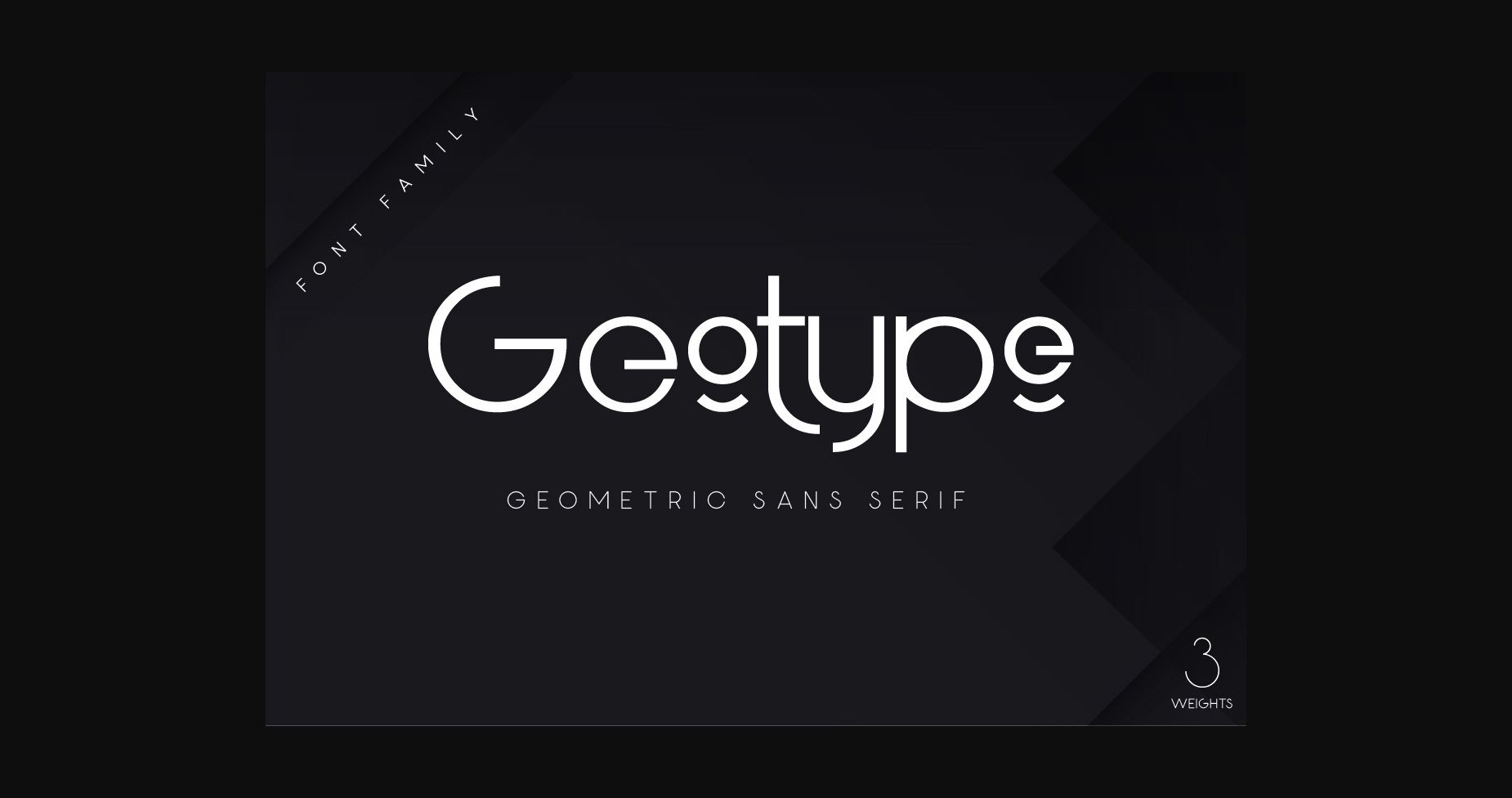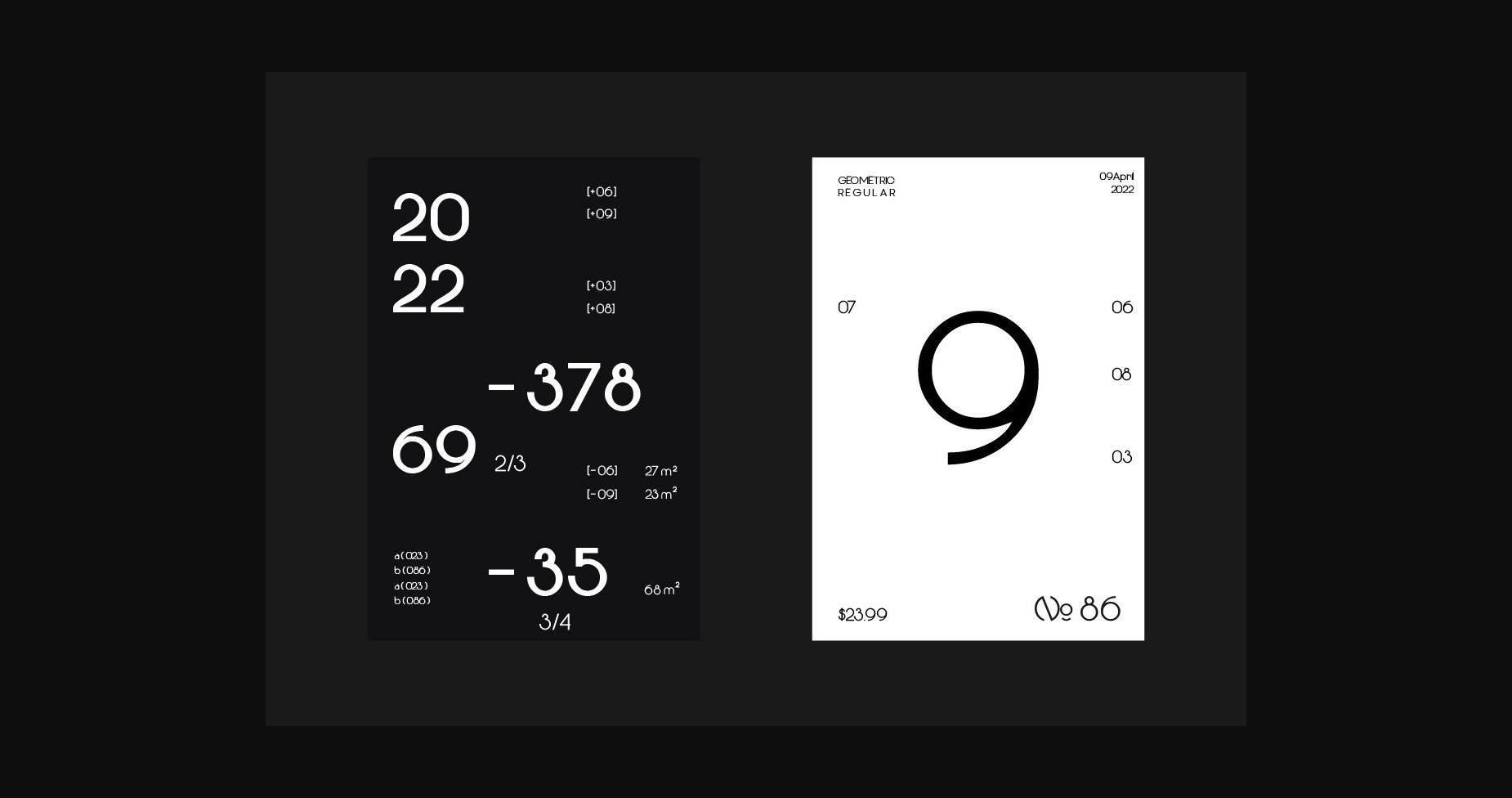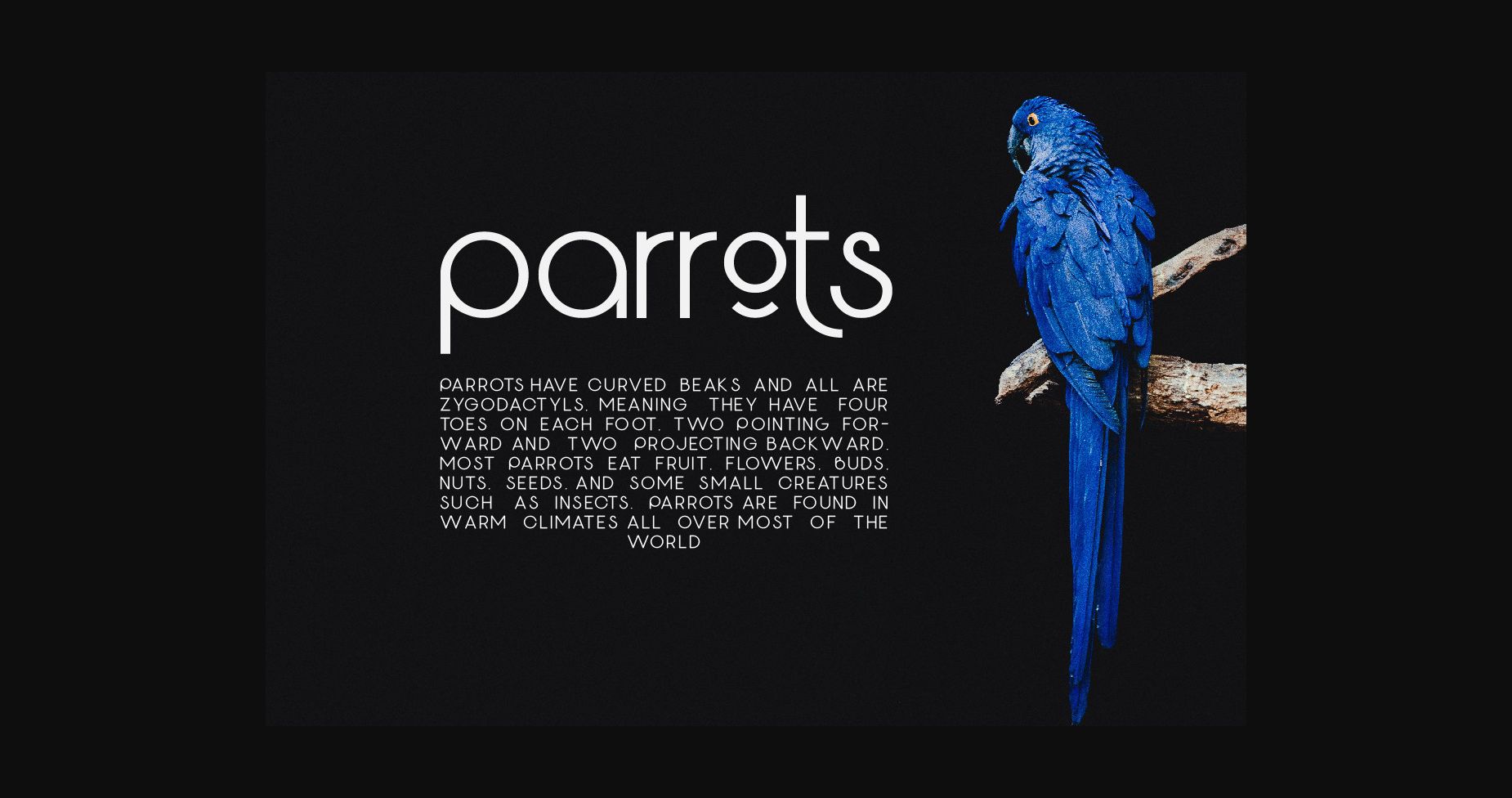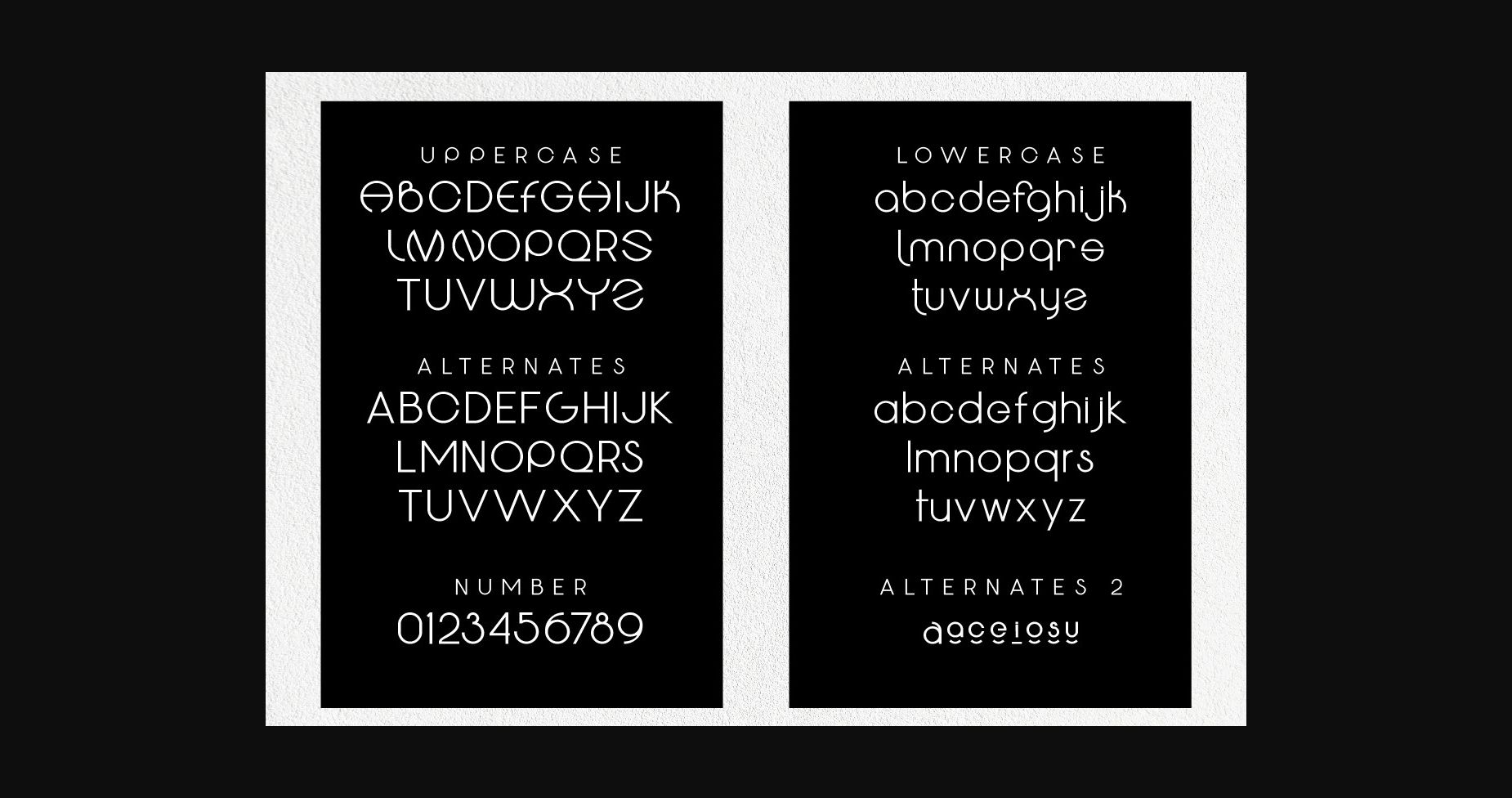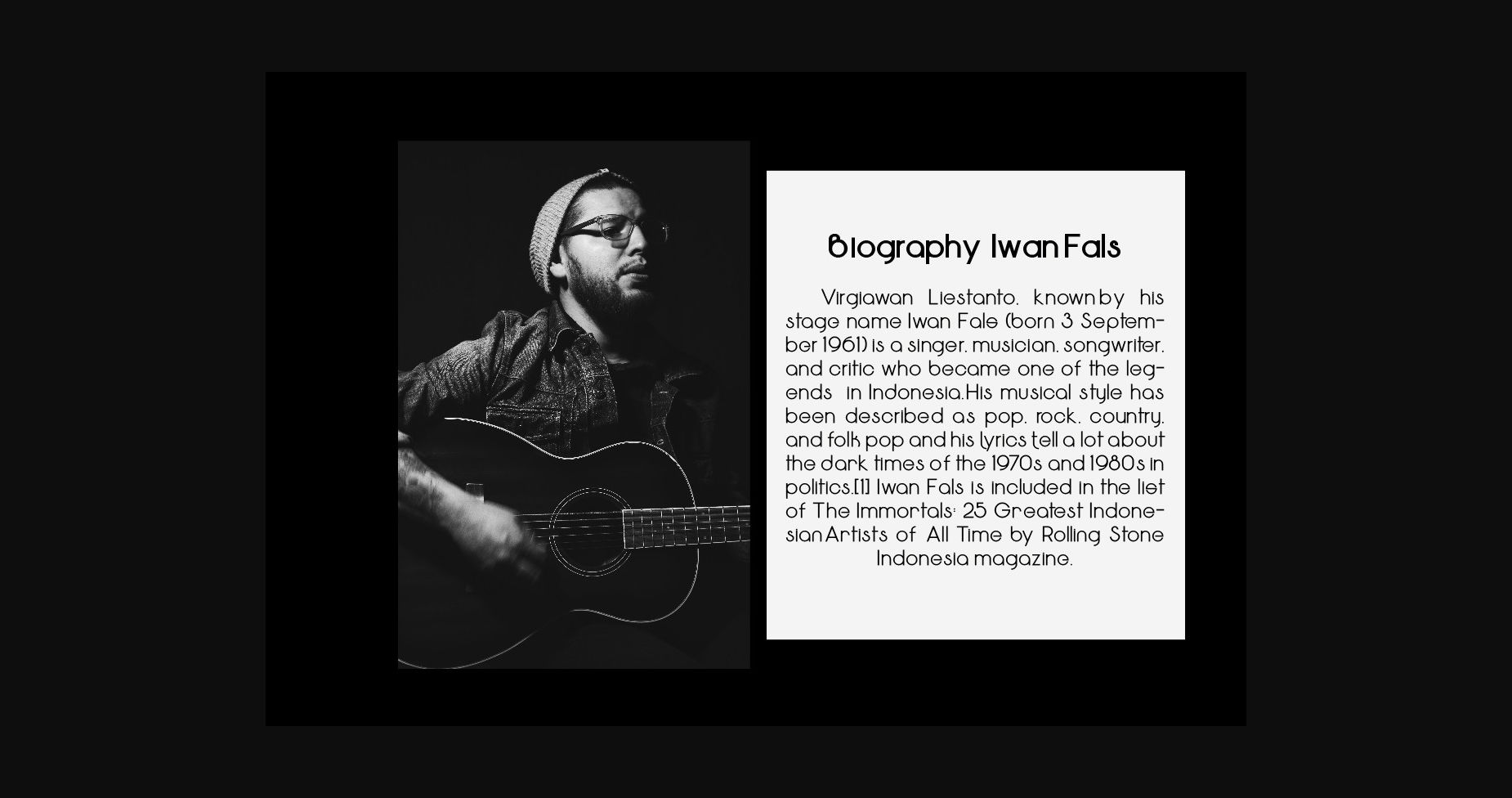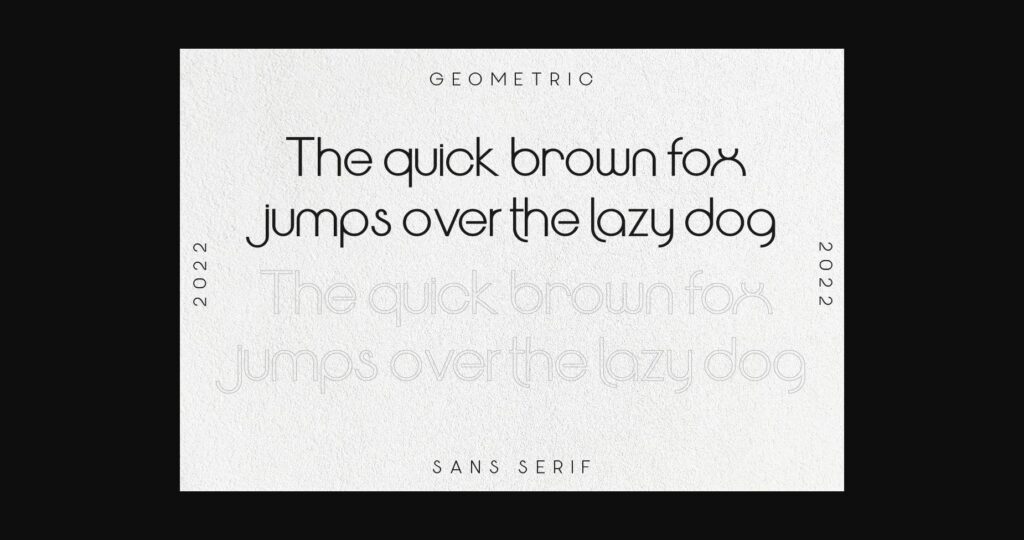
Geotype Font
About Geotype Font
Geotype is a clean sans serif typeface inspired by circle shapes simple but significant, and defined by its crisp edges and modern touches. It was designed for optimal legibility. This font is PUA encoded which means you can access all of the glyphs and swashes with ease!